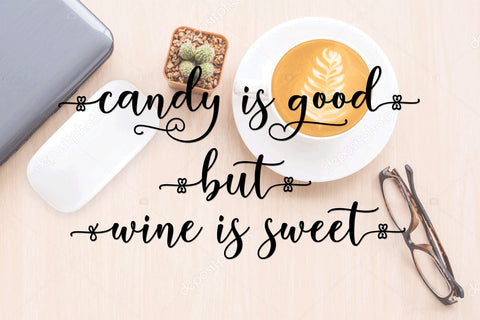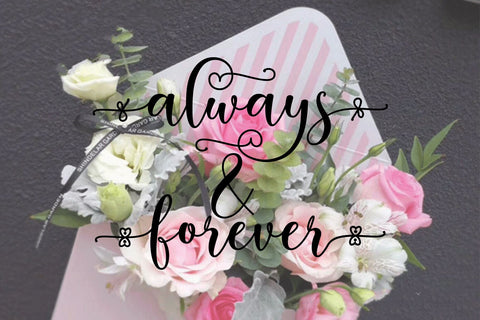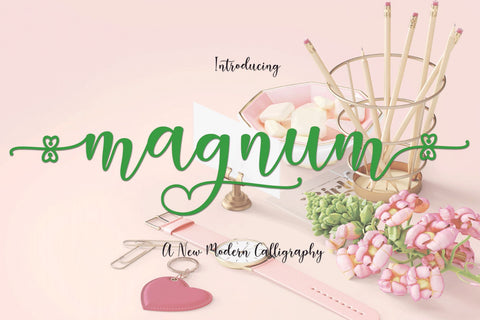
Magnum
Introducing
Magnum Script
Magnum Script a new fresh & modern script with a handmade calligraphy style, decorative characters and a dancing baseline! So beautiful on invitation like greeting cards, branding materials, business cards, quotes, posters, and more!!
Magnum Script :